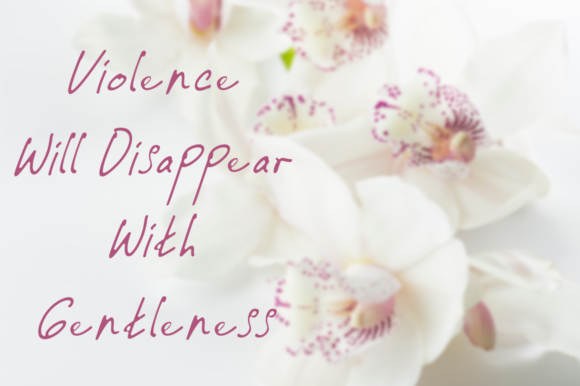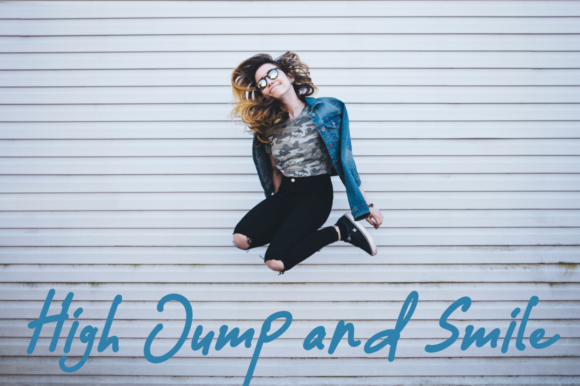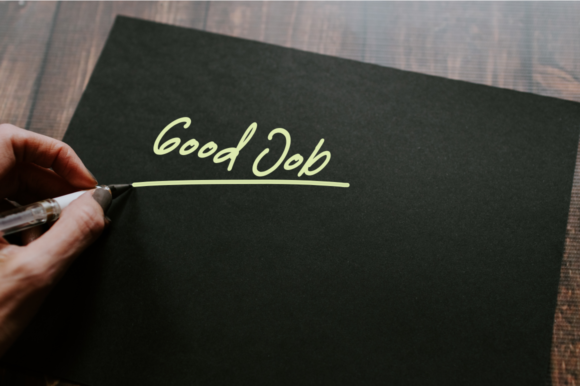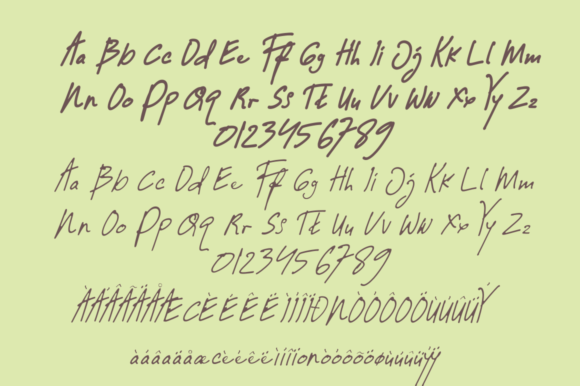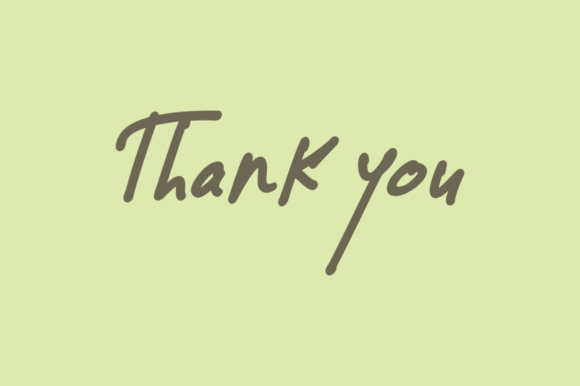
HomeScript FontsGuwathel Font Script Fonts Guwathel Font FacebookXPinterestWhatsApp Guwathel Font Poster 2 Guwathel Font Poster 3 Guwathel Font Poster 4 Guwathel Font Poster 5 Guwathel Font Poster 6 About Guwathel Font Guwathel is a light and beautiful handwritten font with a lot of authenticity! Get inspired by its lovely charm. DOWNLOAD NOW People also explored Jolly Tales Font Hocus Pocus Font Seclude Font Monogram E | Monofont Caps E Font Happy Sweet Font Lovely Love Font Anelya Font Darlothes Font PAG Theater 272 0 TagsGuwathel Font Previous articleYackien FontNext articleMy Yellow Car Font LEAVE A REPLY Cancel reply Comment: Please enter your comment! Name:* Please enter your name here Email:* You have entered an incorrect email address! Please enter your email address here Website: Save my name, email, and website in this browser for the next time I comment. Personal Use Free The Relapse Personal Use Free Read more about this font Deftone Personal Use Free Read more about this font Super Caramel Font Personal Use Free Read more about this font BD Lofi Personal Use Free Read more about this font BLOG How to Cut Any Font on Cricut: Convert a Font to SVG (Free) Turn any font into a clean SVG so it cuts crisp on Cricut - a quick 3-step workflow using a free font-to-SVG tool. Exploring Font Trends Transform Your Website: Elevate Your Typography with 7 Best Web Font Generators Where to Buy American Fonts Online in 2024